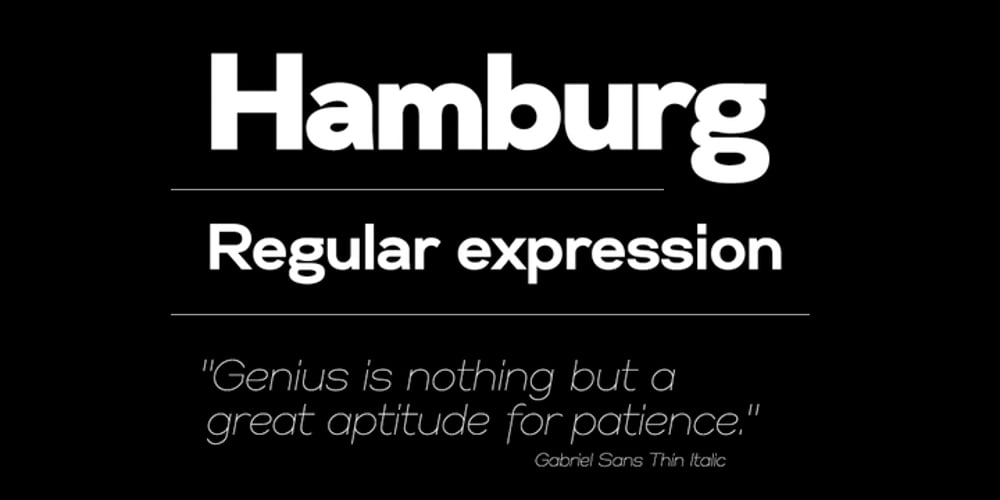
Gabriel Sans Font Family was designed by Svetoslav Simov and published by Fontfabric. Gabriel Sans contains 24 styles and family package options. Gabriel Sans is a font family inspired by the original Sans Serif fonts of the Transitional age like Futura and Grotesk, but with a modern twist. It is clean, elegant and straight-to-the-point. It has features similar to the classic Helvetica – like the endings of the capital C – but goes one step further. It also has a quadratic look, which makes it easily distinguishable and easy to use – the height is nearly as long as the width. It is professional and equally suited to your business or your personal lifestyle; it can be used in logotypes as well as in typeset text. It’s an all-purpose font offering the best of both worlds! Gabriel Sans comes in six weights, italic and normal.